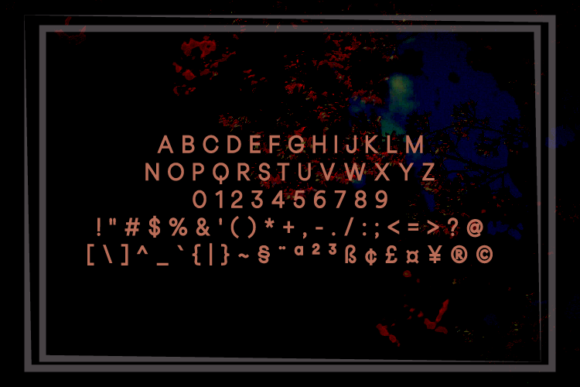
Introduction to Grilesthy Extra Bold Font Font
Fonts play a crucial role in design, and the Grilesthy Extra Bold Font font is a typeface that brings both character and versatility to any project. Whether you’re working on a branding project, a website, or a print design, the Grilesthy Extra Bold Font font offers a unique style that can elevate your work.
Grilesthy is a modern and casual font with an incredibly friendly feel.
This fantastic sans serif font is best suited for headlines of all sizes, as well as for blocks of text that have both maximum and minimum variations Grilesthy comes with 10 different weights ranging from thin to extra black versions and is sold separately so that you can choose the weight that suits your design/project best.
Key Features of Grilesthy Extra Bold Font Font
Why Choose Grilesthy Extra Bold Font Font?
The Grilesthy Extra Bold Font font is more than just a typeface – it’s a design tool that helps you communicate your message with style and clarity. Its unique character set and versatile design make it suitable for a wide range of applications, from elegant invitations to bold headlines.
With its carefully crafted letterforms and balanced proportions, the Grilesthy Extra Bold Font font ensures readability and visual appeal across all mediums.
What makes Grilesthy Extra Bold Font font special?
The Grilesthy Extra Bold Font font stands out with its unique design, exceptional readability, and versatility across various design applications.